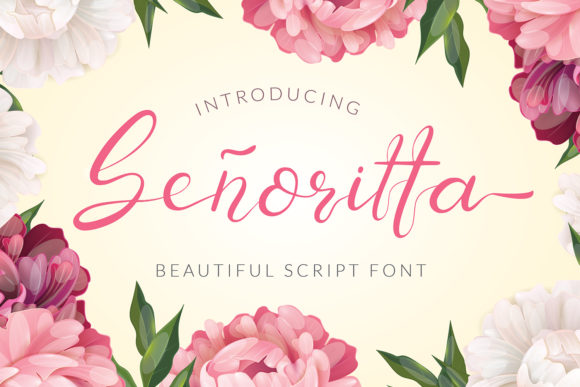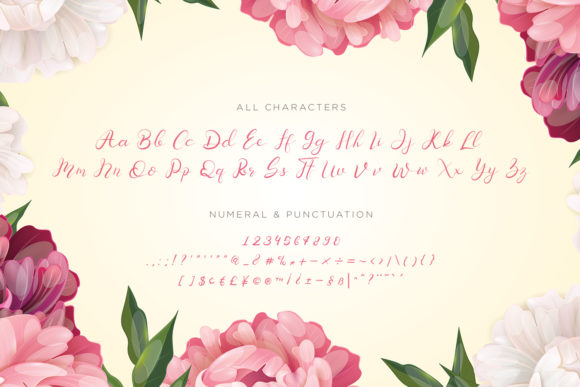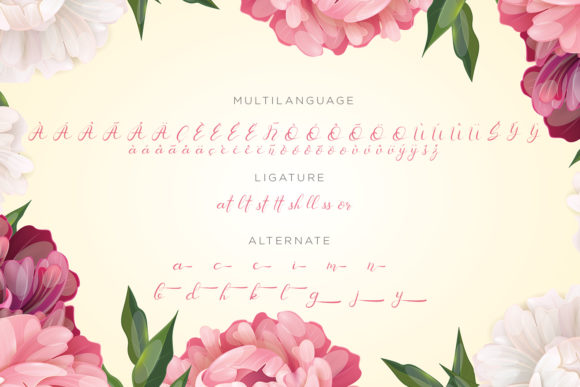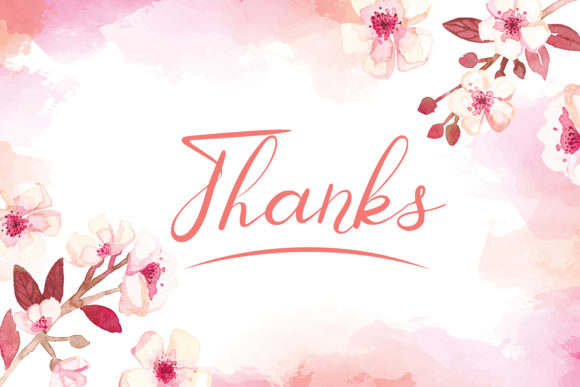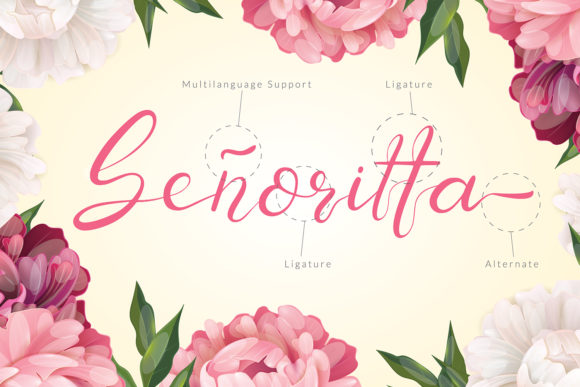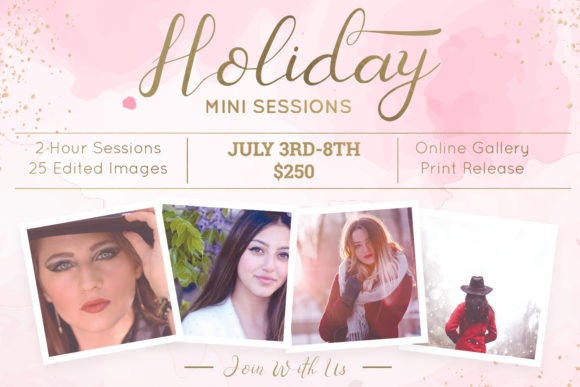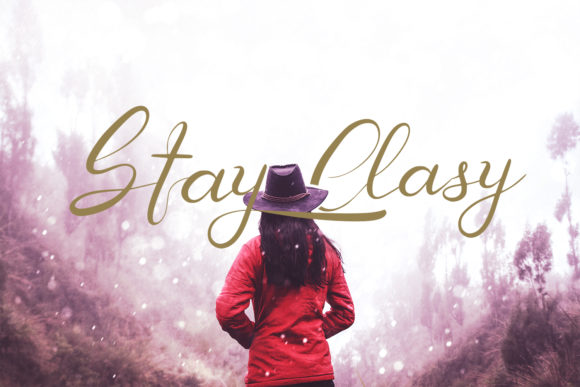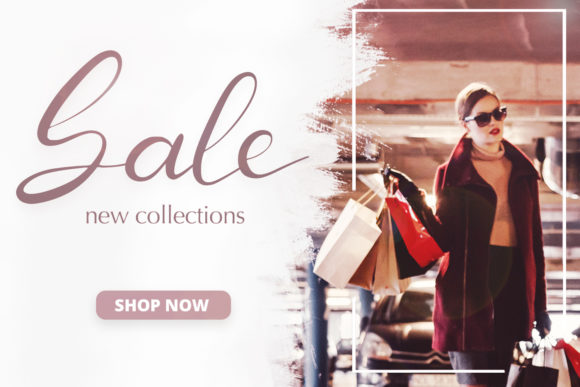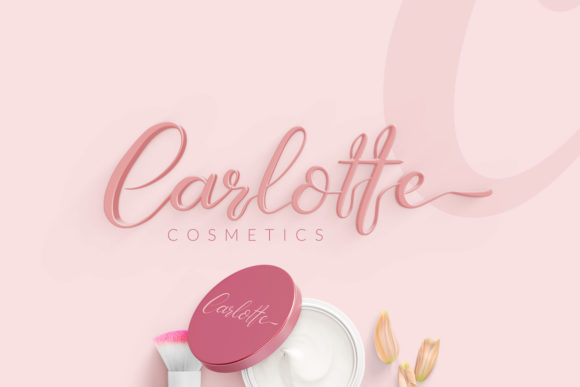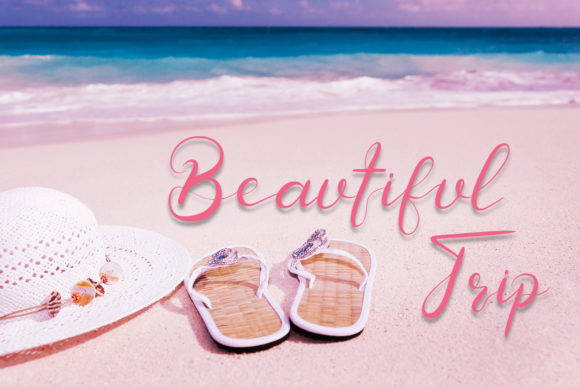
Senoritta Font
About Senoritta Font
Senoritta is a beautiful script font suitable for a variety of projects. This typeface can make your design stand out from the crowd!